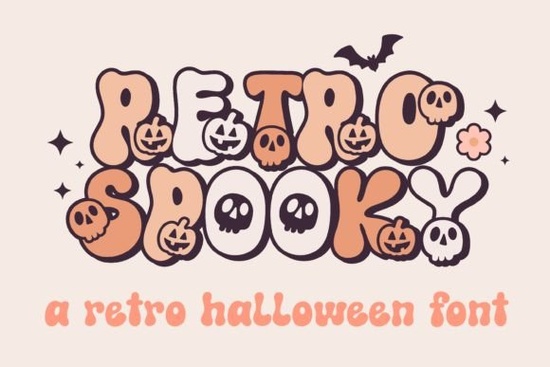
October is right around the corner, and if you're working on Halloween-themed designs, the Retro Spooky font is worth a close look. It's a retro-inspired display typeface with a spooky, playful personality built for projects that need that classic Halloween drama without looking cheesy. Whether you're designing party invitations, t-shirt graphics, or social media posts, this font brings a fun vintage horror vibe that works across a lot of different projects.
What Makes Retro Spooky a Good Pick for Halloween Designs?
Retro Spooky stands out because it blends a vintage aesthetic with a spooky, slightly mischievous tone. The letterforms have that classic Halloween feel think old horror movie posters and vintage carnival signage but with clean enough lines to stay readable at various sizes. It's not overly decorative to the point where you can't use it for body-integrated designs, and it's not so subtle that it disappears on a busy background.
This balance makes it a solid choice for print-on-demand sellers who need fonts that look great on mockups and final products alike. If you've been searching for Halloween fonts that feel nostalgic without being outdated, this one hits that middle ground nicely.
What Types of Projects Work Best With This Font?
Retro Spooky is versatile enough for a range of Halloween and autumn-themed work. Here are some common ways designers and crafters use fonts like this one:
- T-shirt and hoodie designs for October print-on-demand shops
- Party invitations and Halloween event flyers
- Social media graphics and seasonal marketing banners
- Greeting cards and trick-or-treat bag labels
- Wall art prints with spooky quotes or vintage horror themes
- Stickers and decals for Etsy or craft fair products
- YouTube thumbnails and podcast cover art for October episodes
If you run a small business and want to create seasonal branding like menu headers for a fall café or signage for a haunted house event a typeface like Retro Spooky gives you that instant Halloween look without needing complex design elements around it.
Does Retro Spooky Pair Well With Other Fonts?
Absolutely. One of the smartest ways to use a bold display font like this is to pair it with a clean, simple typeface for contrast. For example, you could use Retro Spooky for your headline and pair it with a straightforward sans-serif for supporting text.
How Does Retro Spooky Compare to Other Halloween Fonts?
There are plenty of spooky fonts out there, but not all of them have that retro character. Some lean too far into the "scary" territory with jagged, hard-to-read letters. Others look fun but lack the vintage personality. Retro Spooky finds a nice middle ground, which is why it works for both playful and dramatic designs.